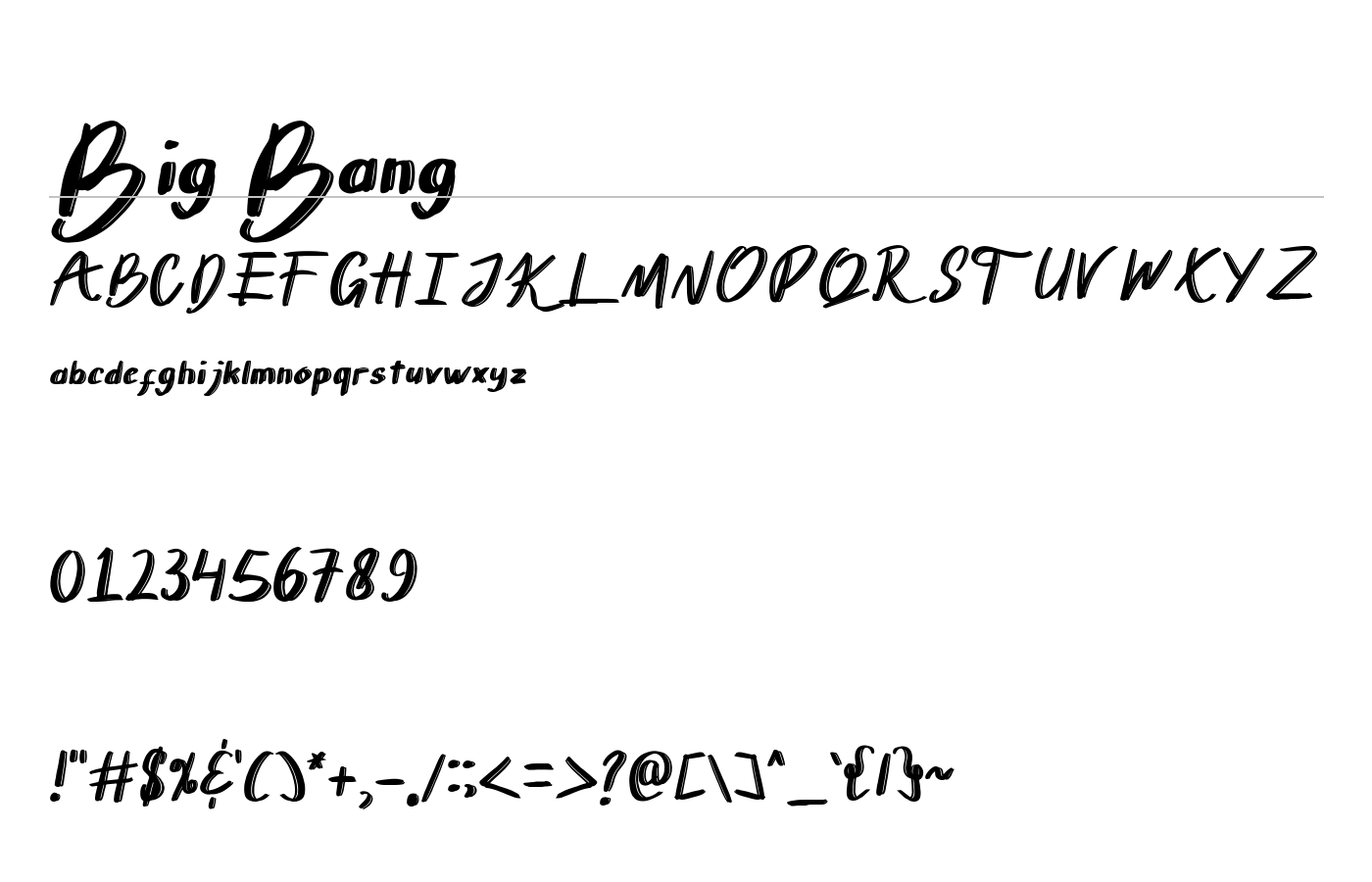
Big Bang Font is a bold and lively script typeface with a brushed, handwritten style that brings energy and personality to any design. Its dynamic strokes and casual, slightly irregular letterforms make it ideal for projects that want to feel approachable yet impactful, such as branding, posters, and headlines. This font works wonderfully where a sense of creativity, spontaneity, and informal elegance is desired.
Big Bang Font
About Big Bang Font
| Font family | Big Bang Font |
| Designer | Muhammad Hisyam Rivai |
| Trademark | Blom Letter Studio - Indonesia |